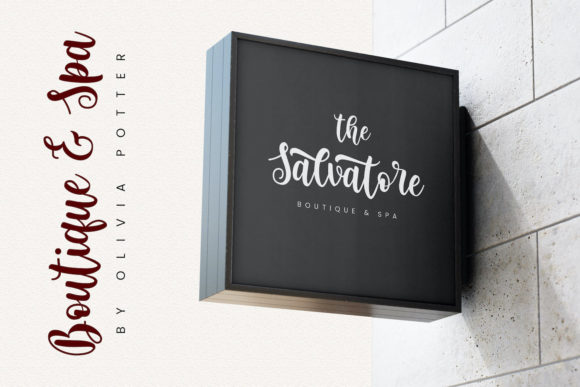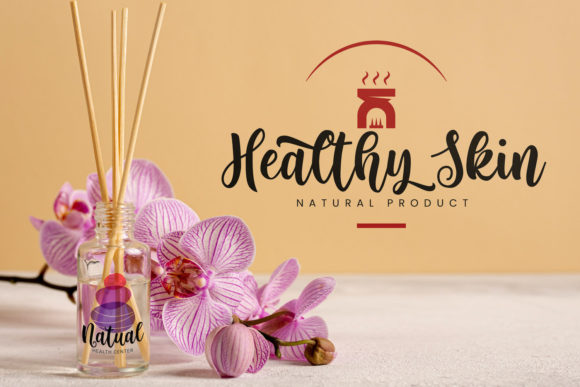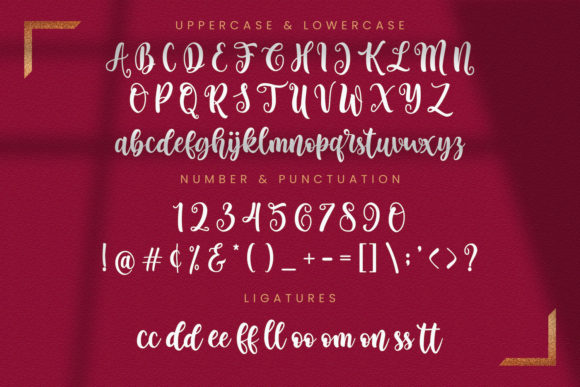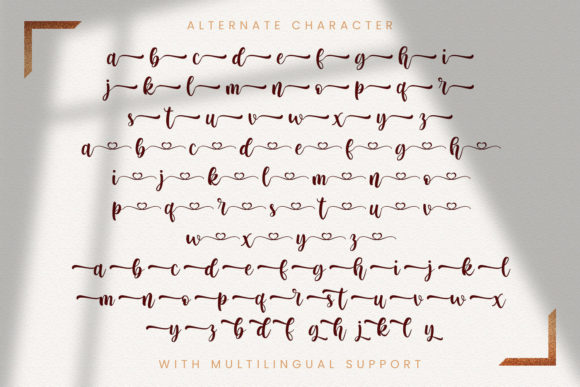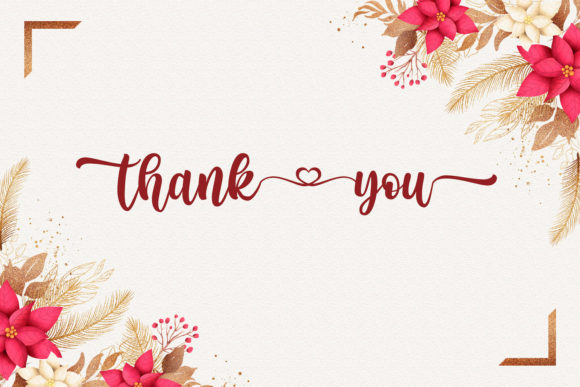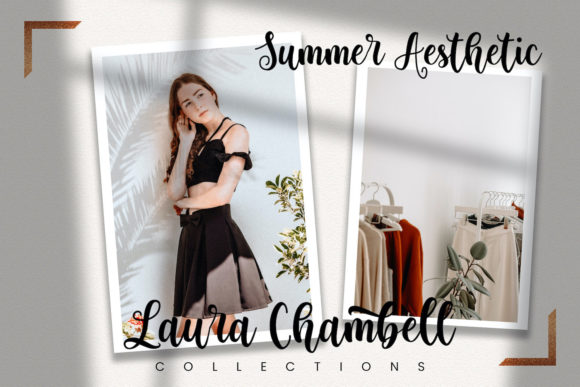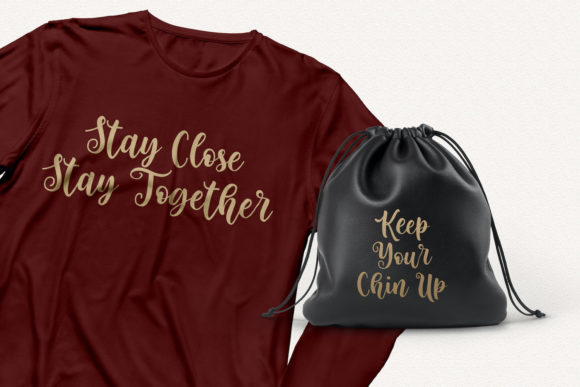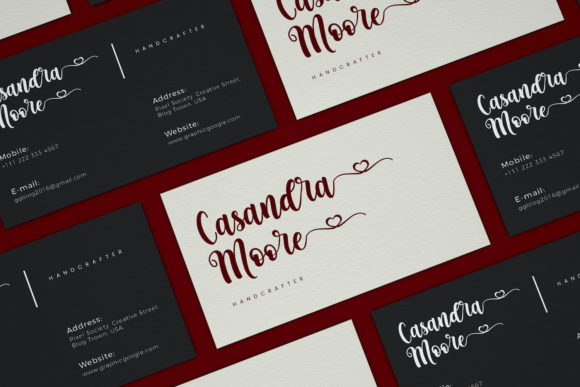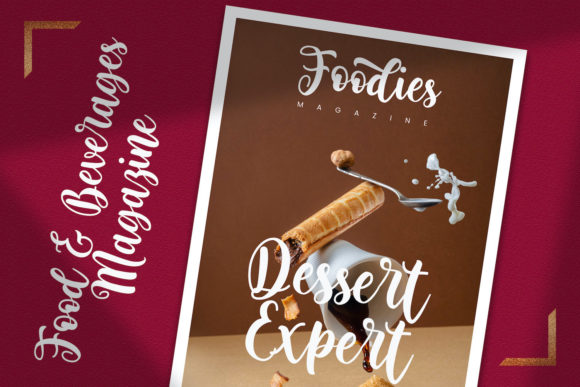
About Fenthy Wahuky Font
Fenthy Wahuky is an exquisite handwritten font, that is complemented with either heart or vintage swashes to make your design incredibly unique and personal. Fall in love with it and bring your projects to the highest levels! This font is PUA encoded which means you can access all of the glyphs and swashes with ease!